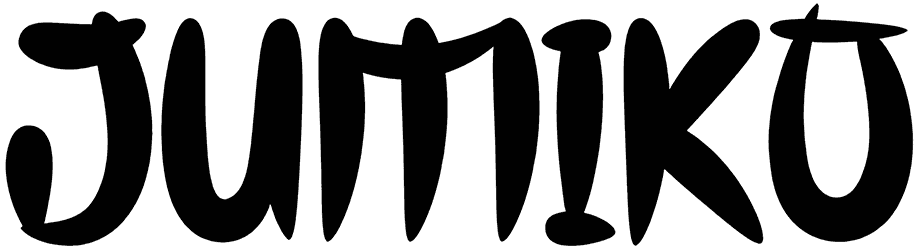
Jumiko Font
A Japanese font like this can provide your design with a cool and eye-catching face that is going to impress the fans of Asian layouts. Thick hand-drawn letters in the Jumiko font will be the reason for the strong and catchy mood of your design. It doesn’t cover numbers, but we suggest you apply it to your movie poster and capture a lot of attention.